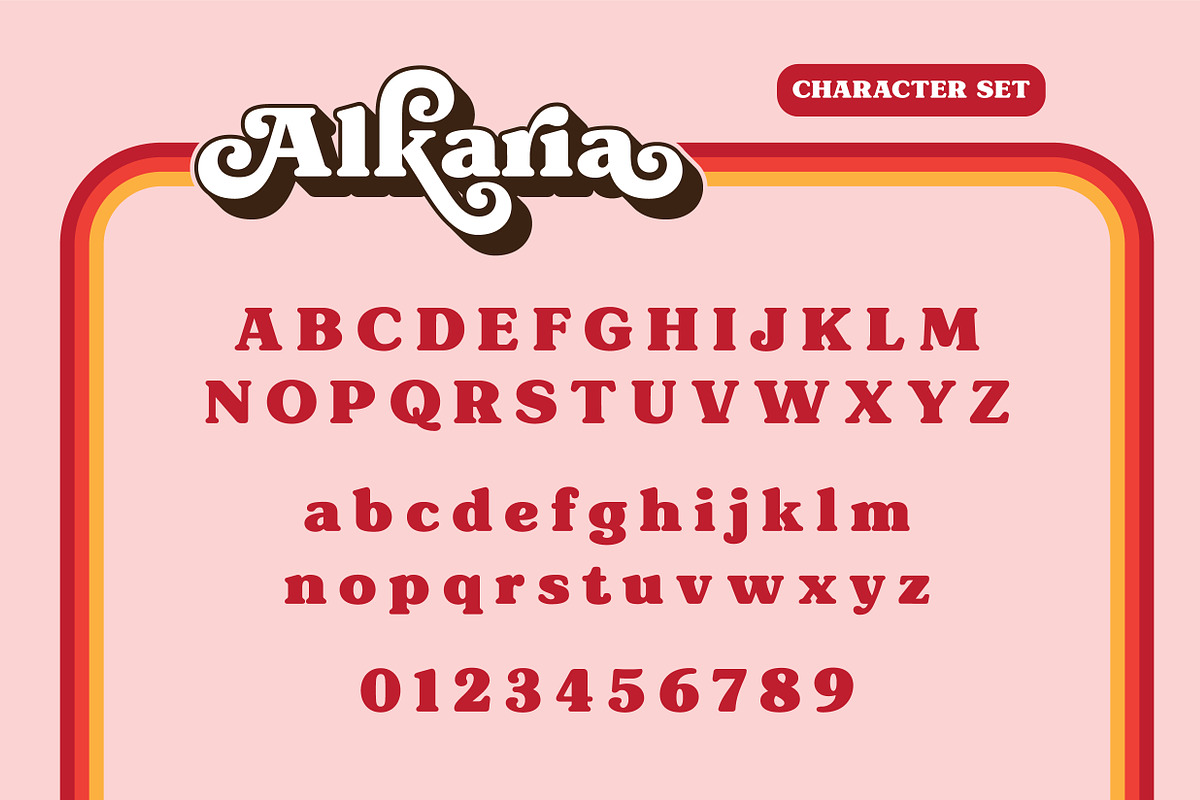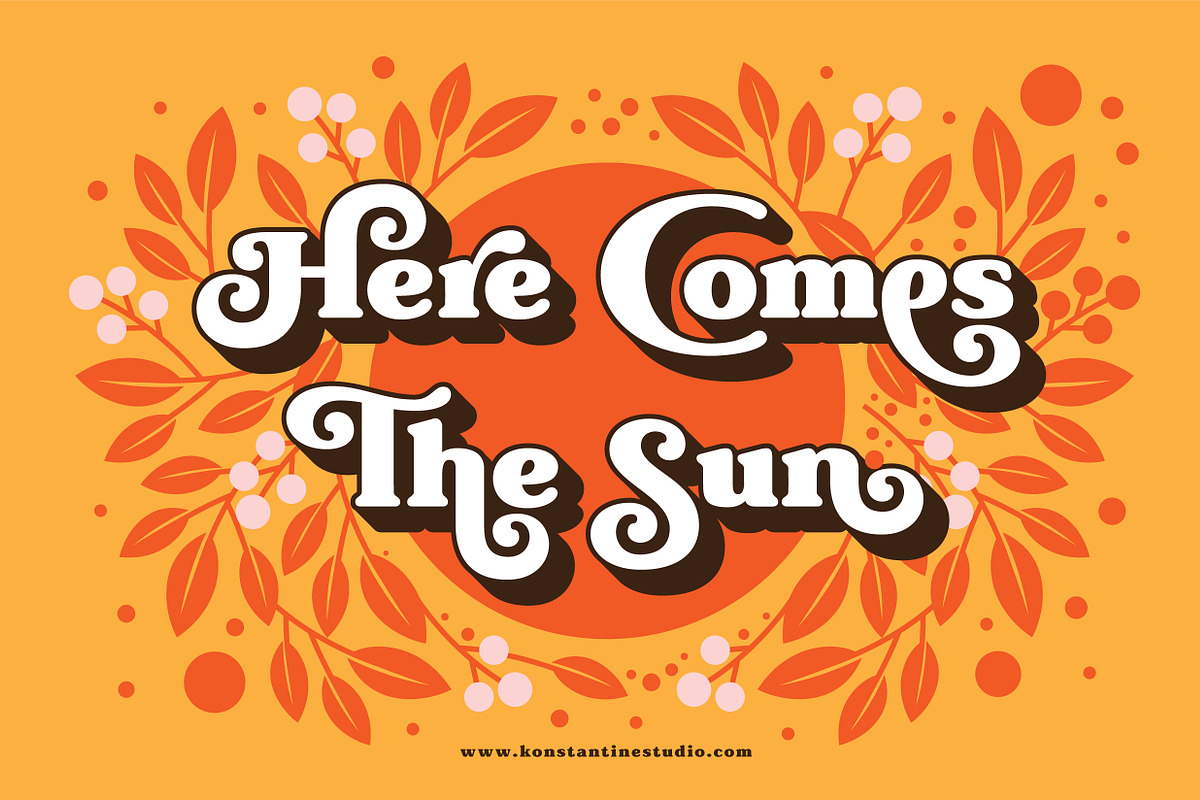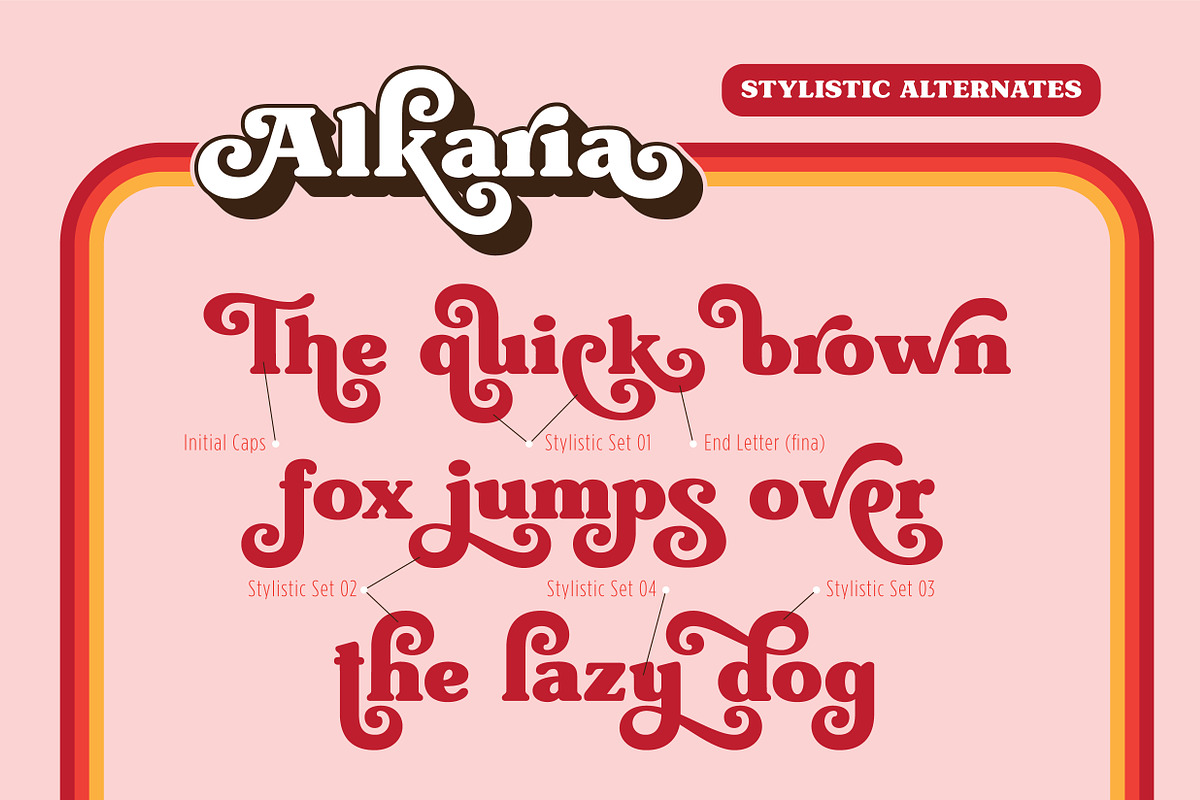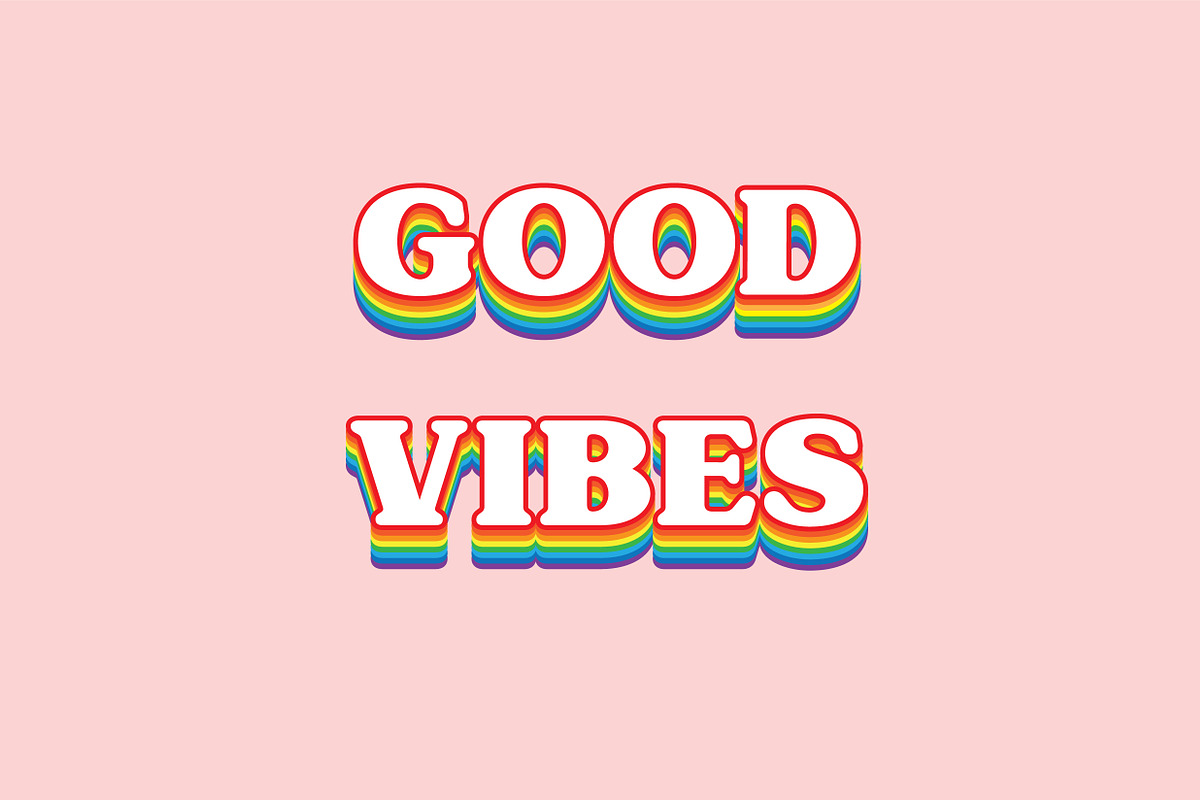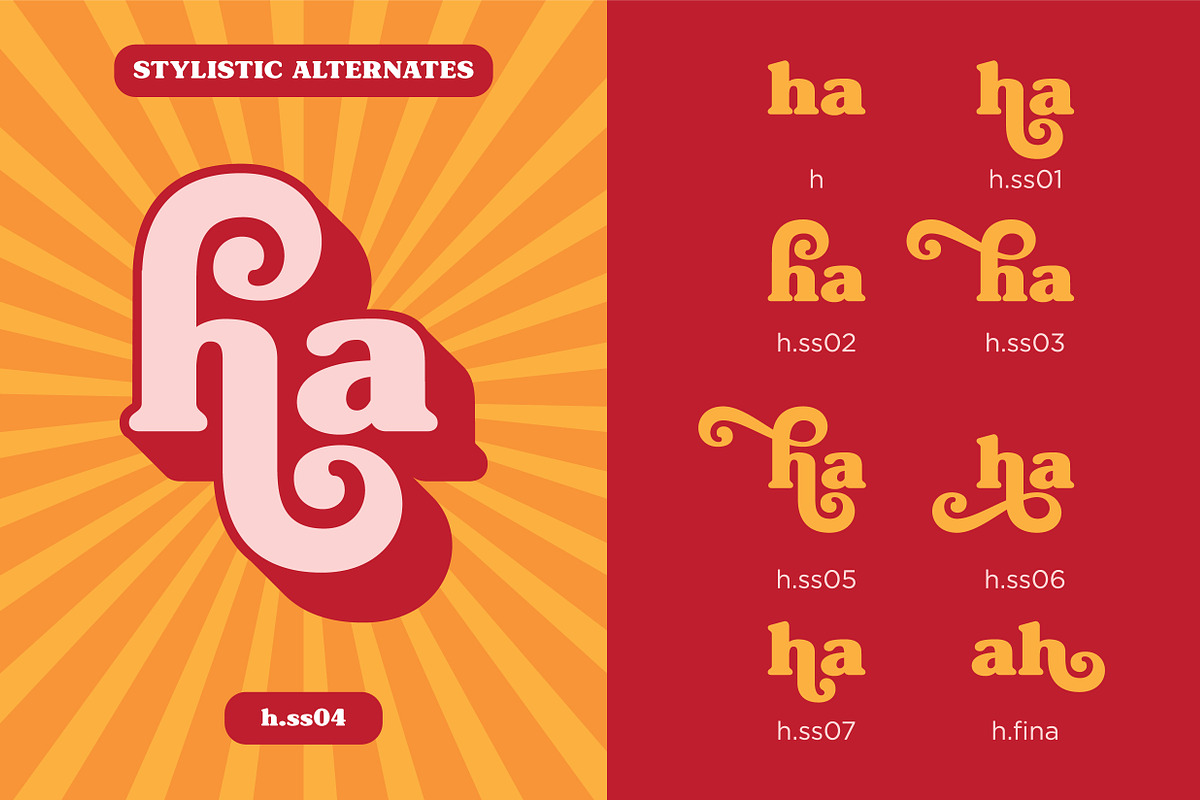
Alkaria is a fun and casual vintage retro font with a perfect balance of retro and modern vibes. Versatile and flexible, it’s ideal for logos, branding, posters, food and beverages, social media, websites, UI/UX, YouTube thumbnails, CVs, mood boards, and weddings.